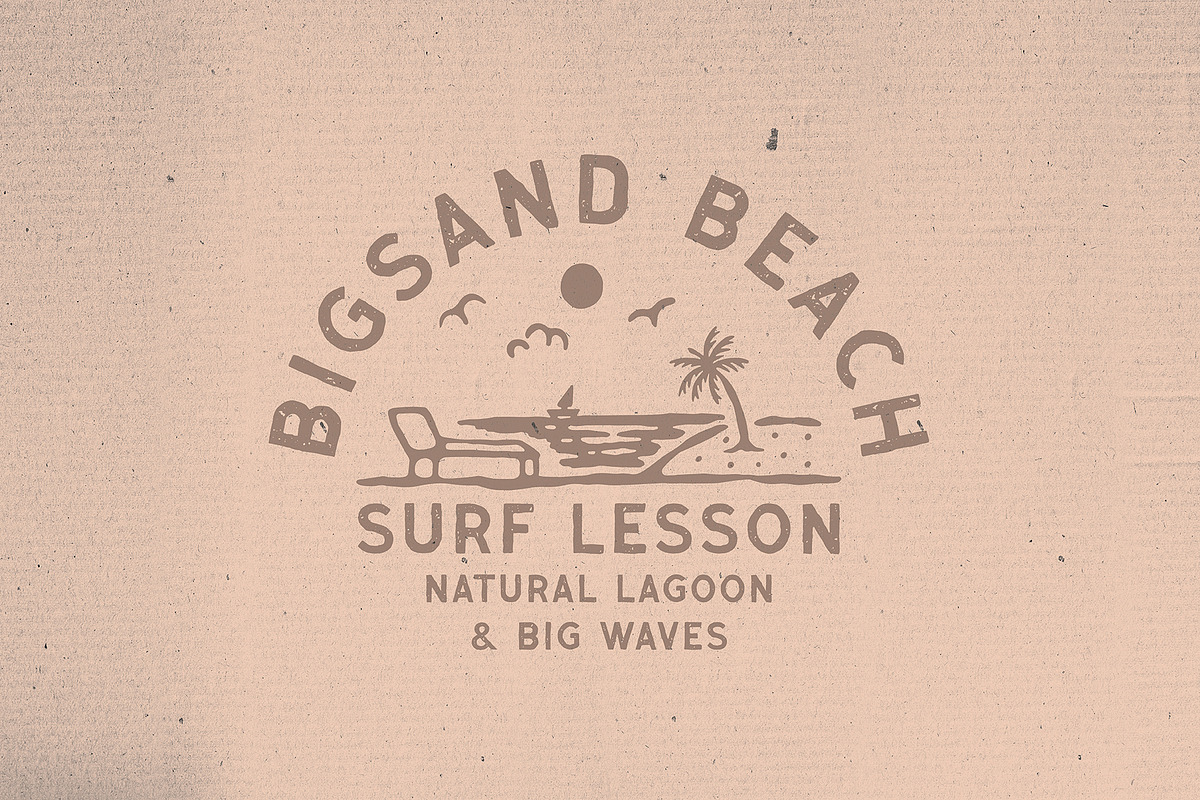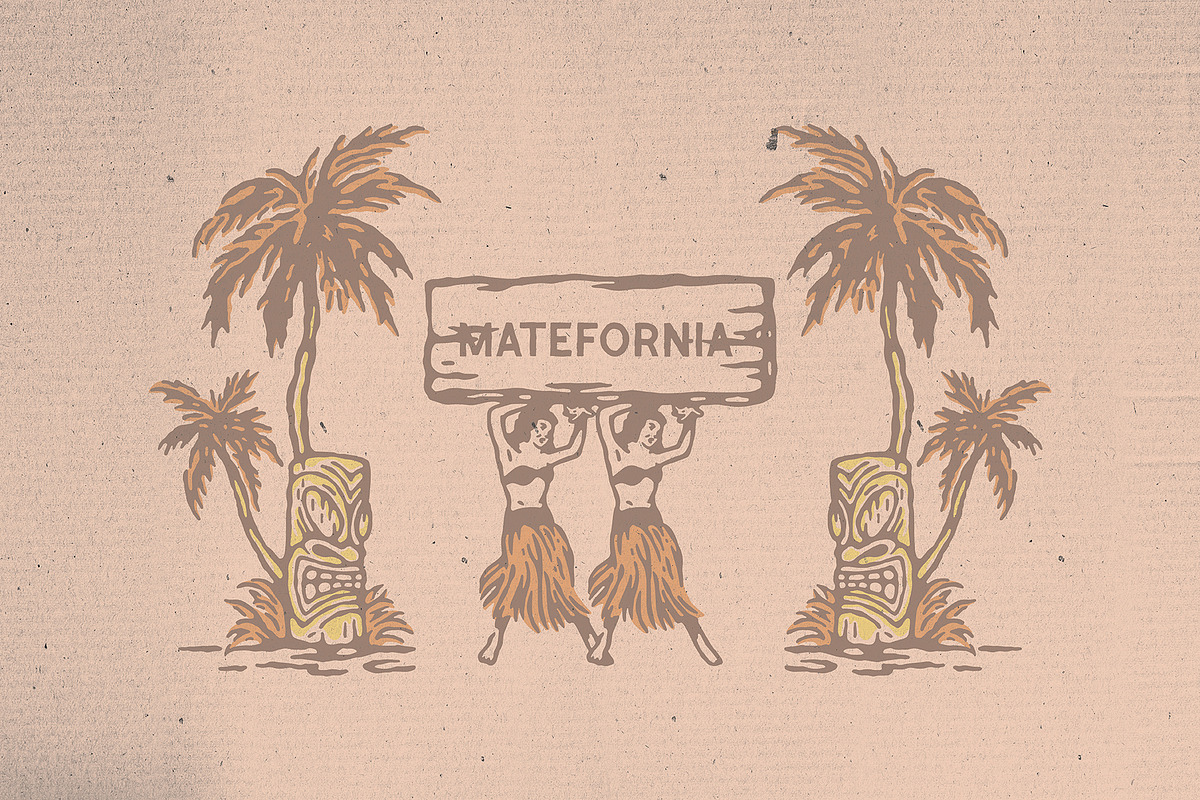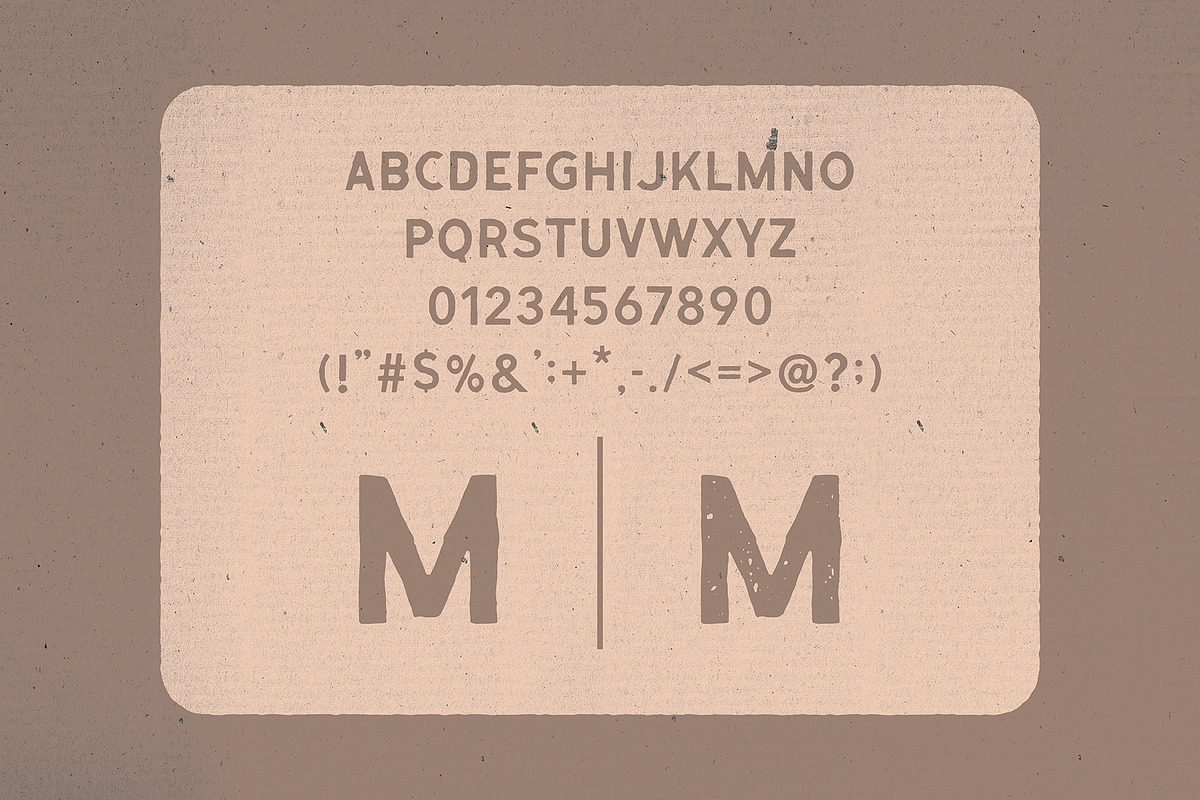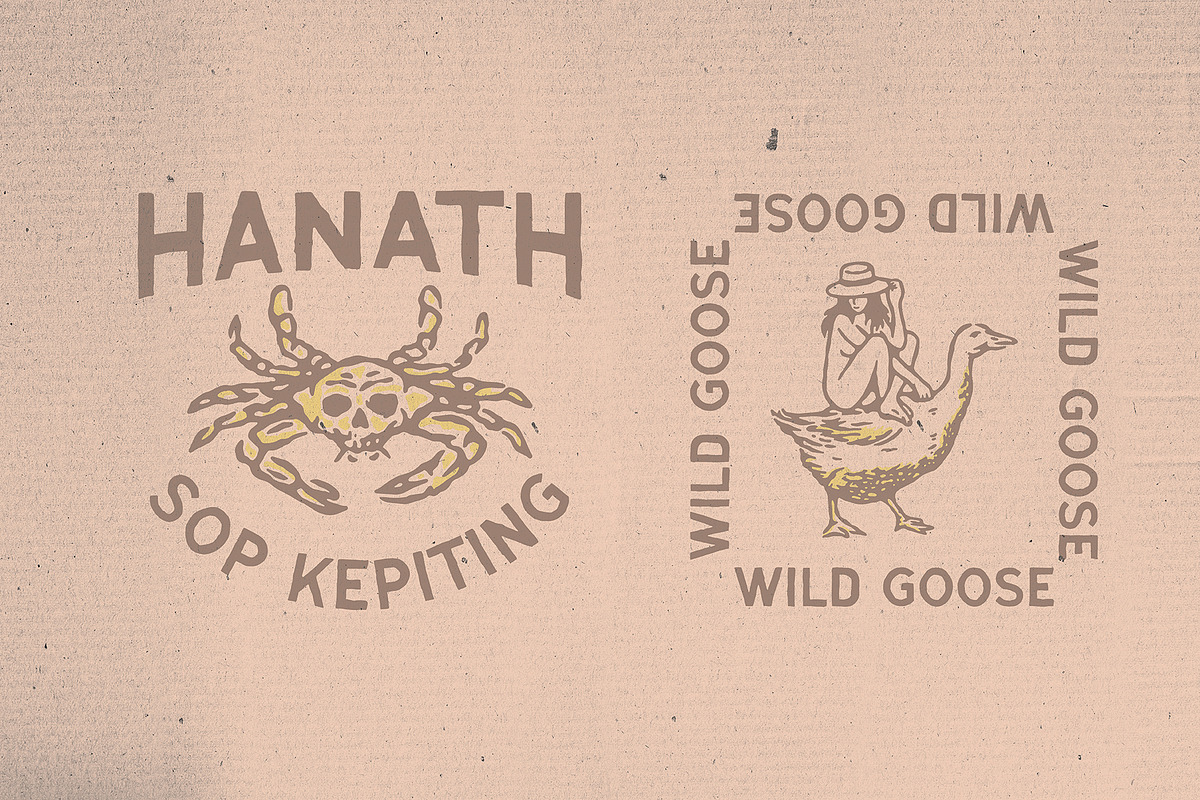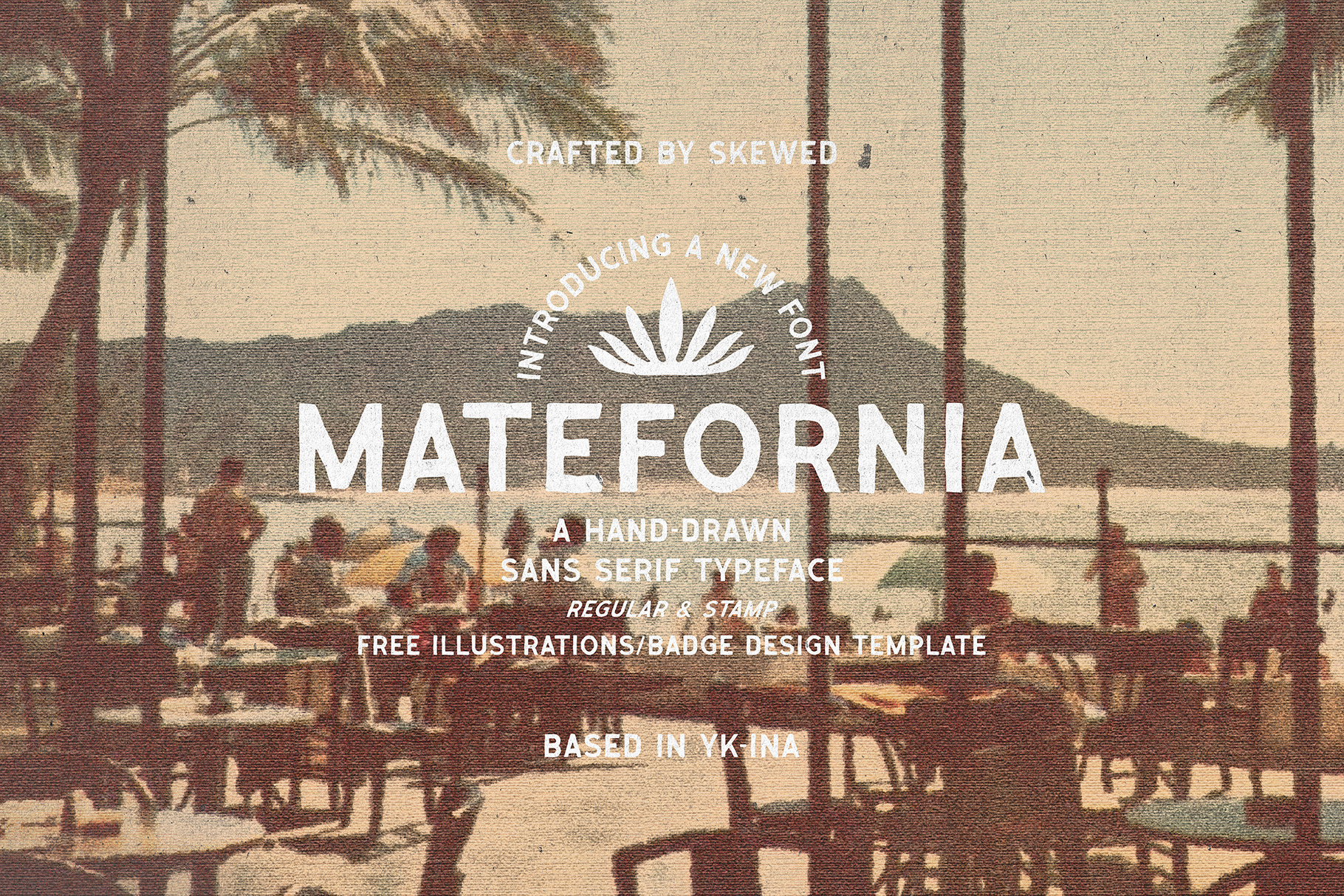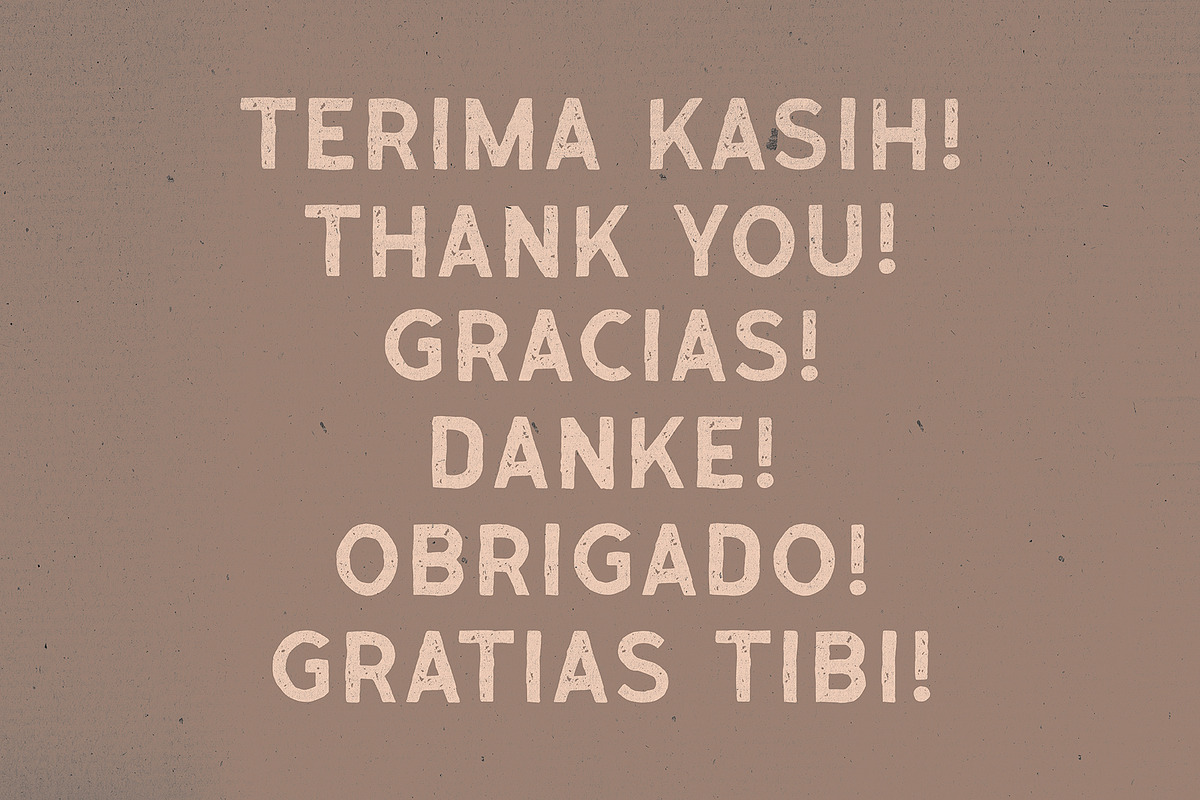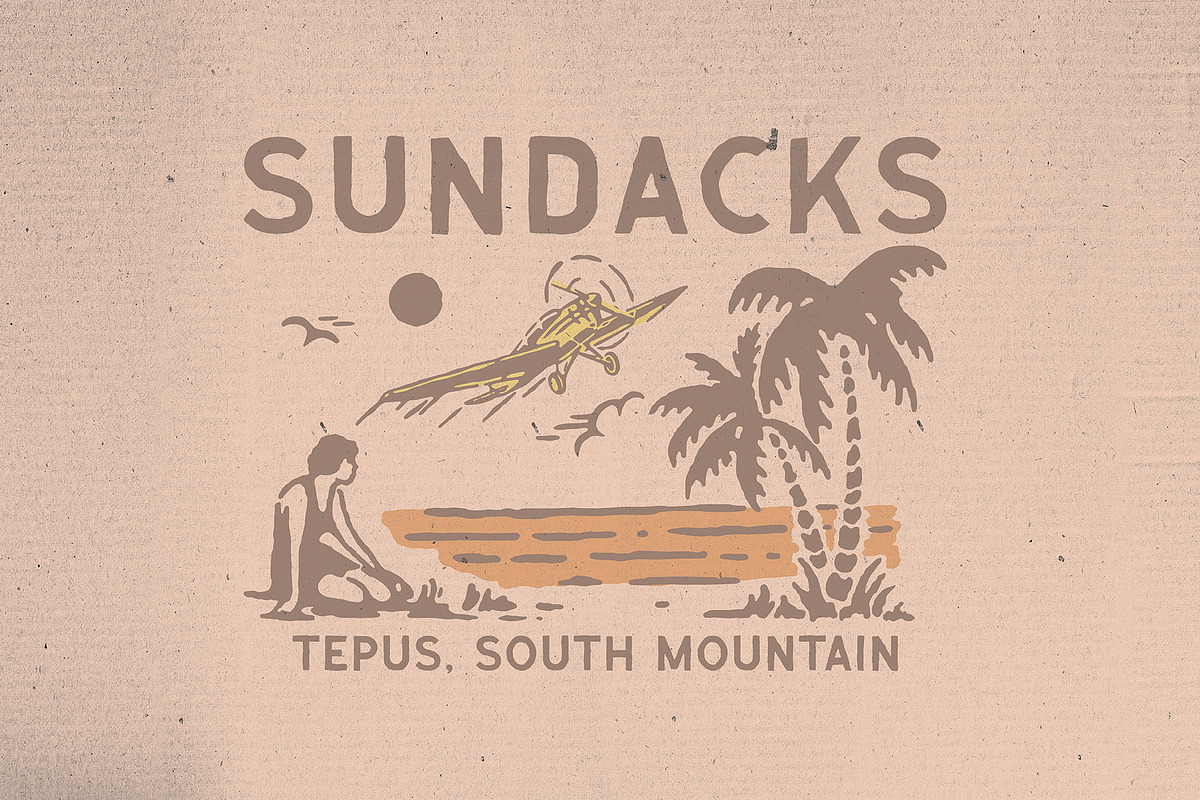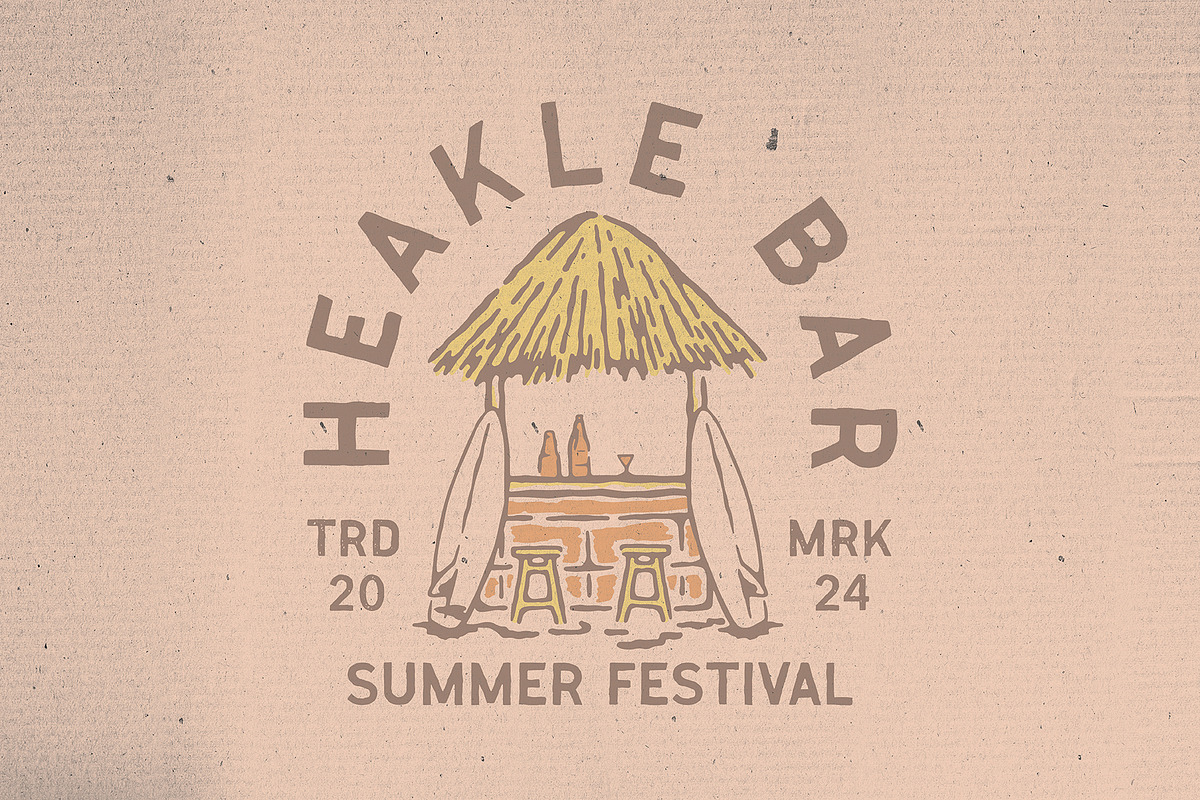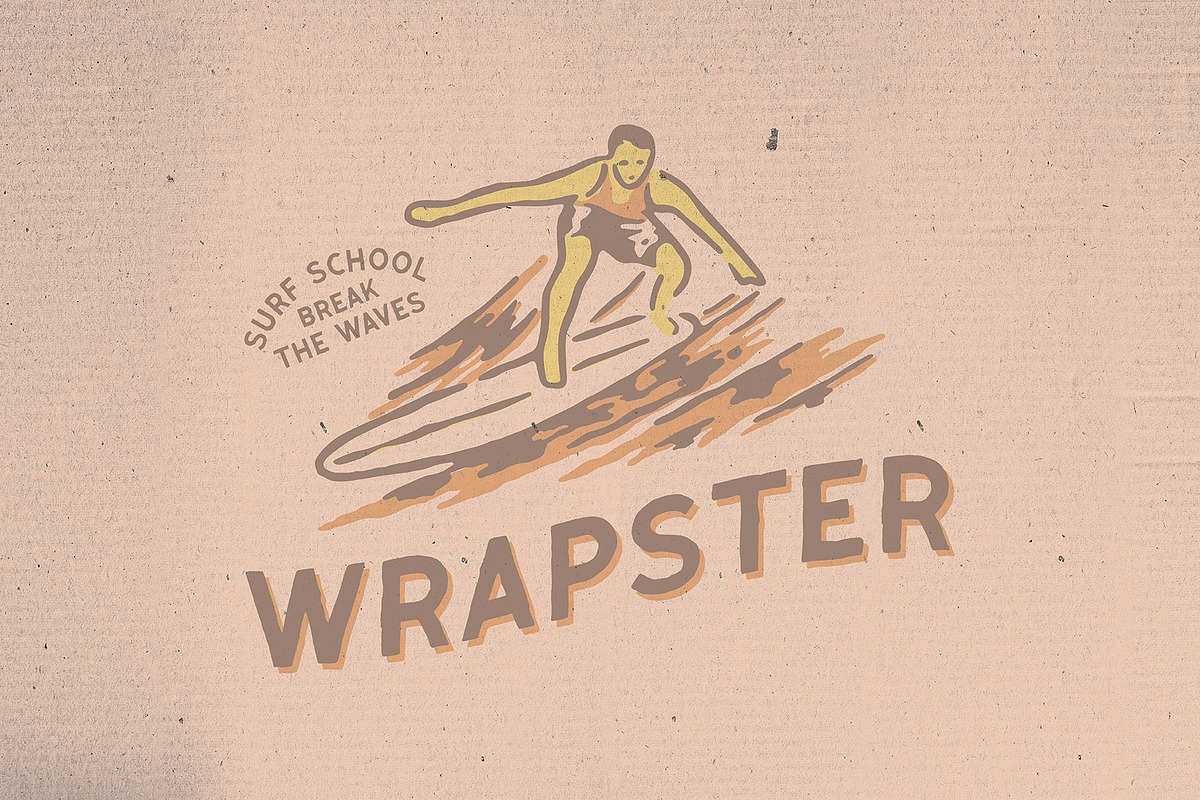
Matefornia Typeface
Matefornia - A hand drawn sans serif typeface Regular & stamp Free illustrations/badge design template
MATEFORNIA has a slightly rough, vintage-style design with a little character in the shape of the letters. This font gives a bold and energetic impression, suitable for designs that want to emphasize a cheerful and enthusiastic vintage atmosphere.